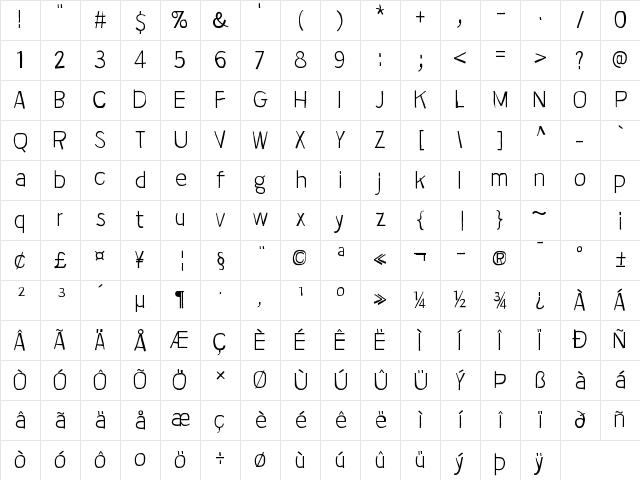
Complete Bullfrog Regular glyph index. Displaying only characters natively supported by Bullfrog Regular font.
Bullfrog is a composed and adaptable typeface that performs quietly and consistently across a wide range of design contexts.
Pro Tip: Use Bullfrog in both headline and body roles to test its range before committing to a single application.